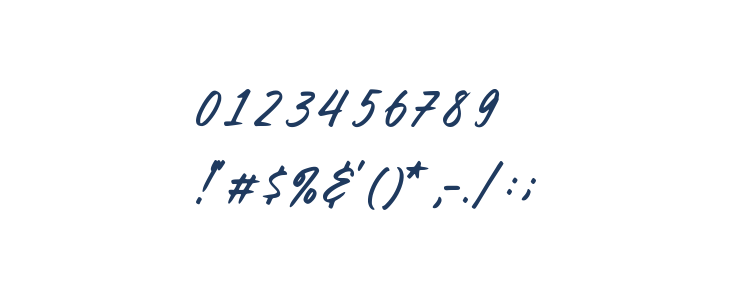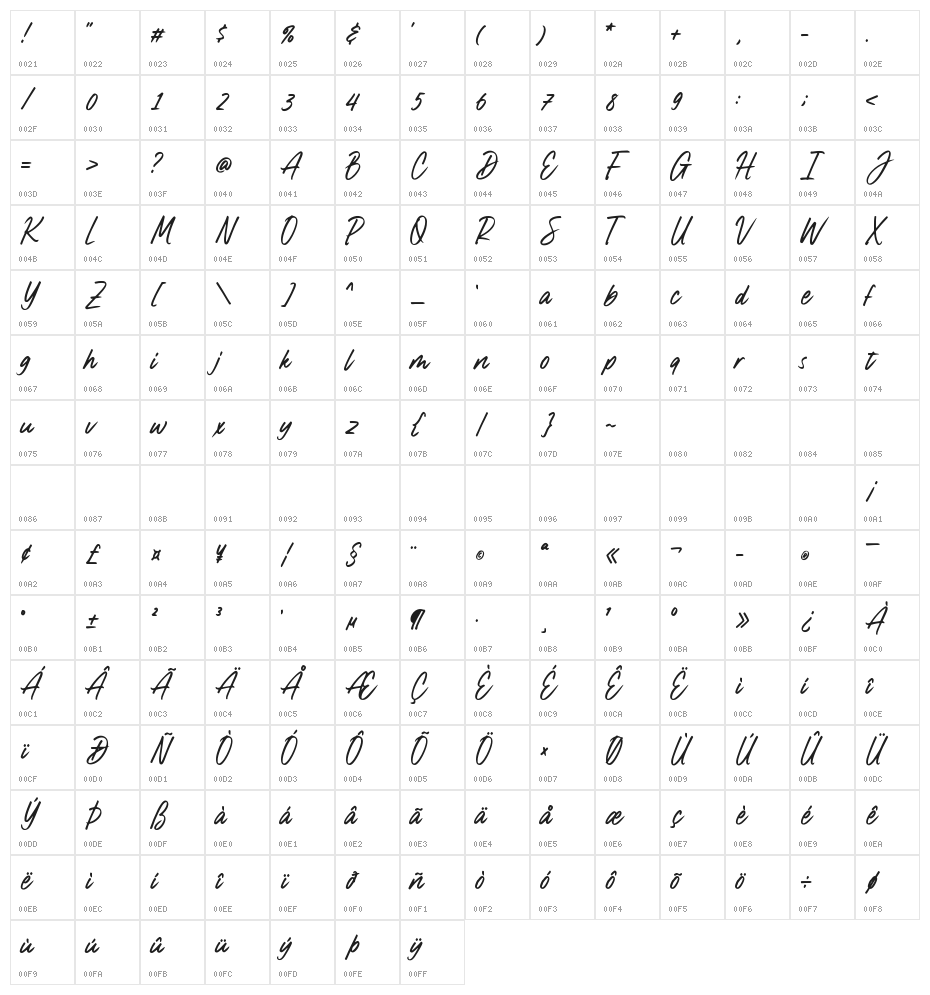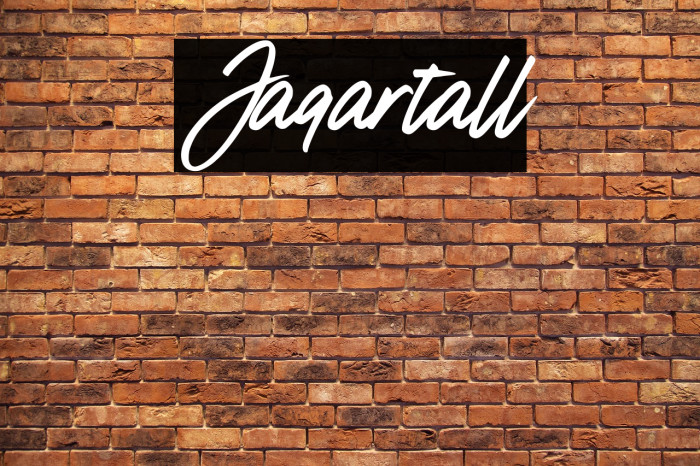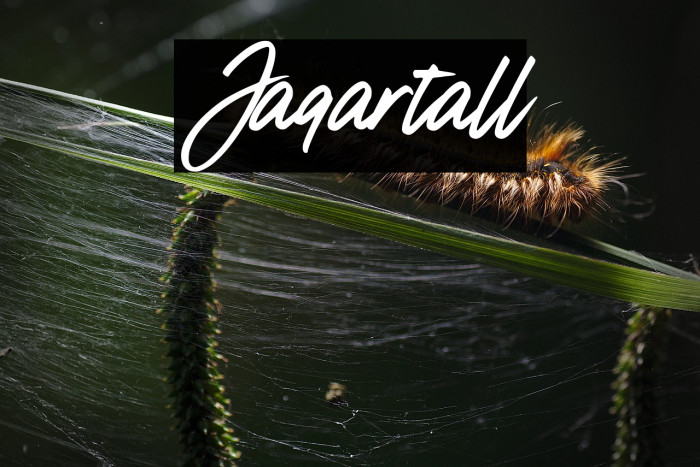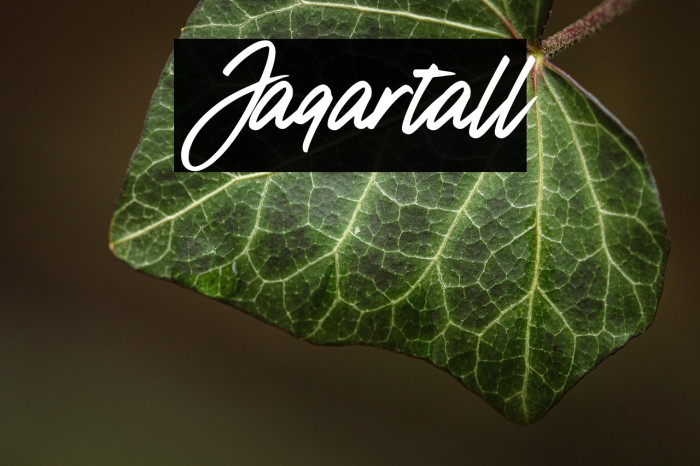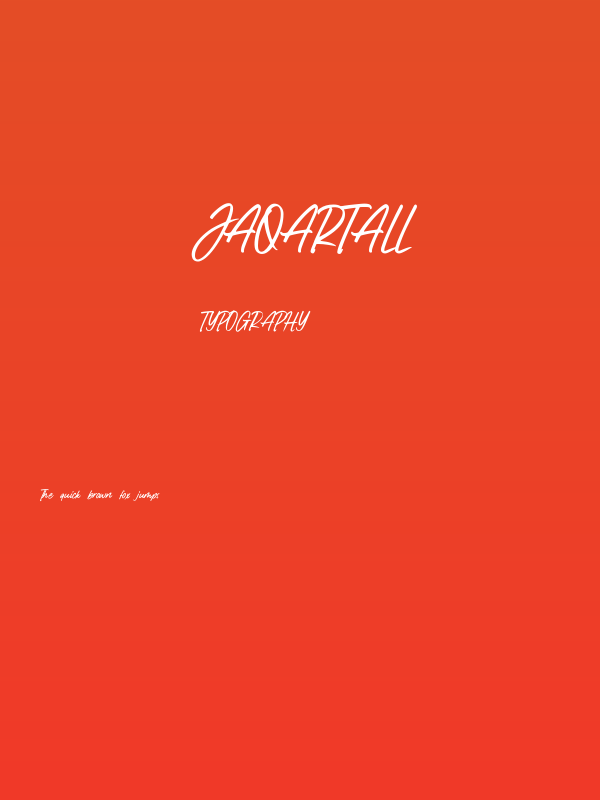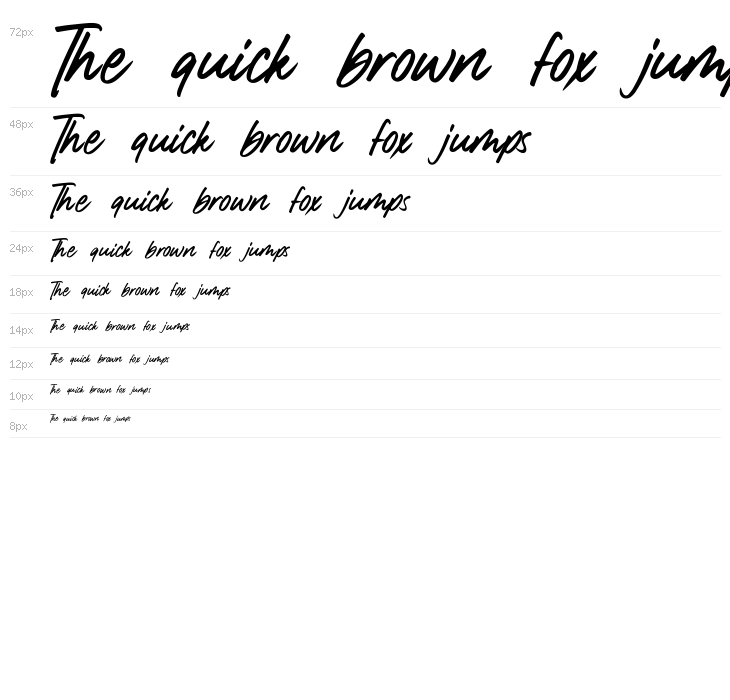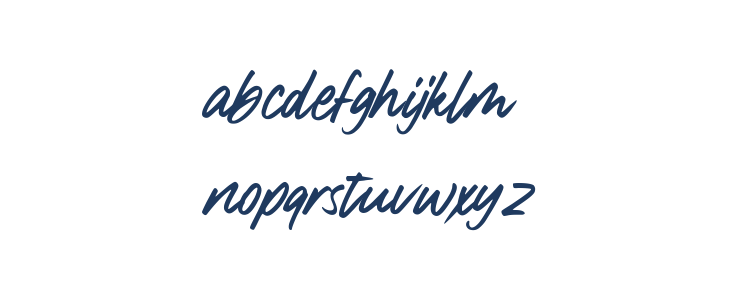
Jaqartall Font
Jaqartall Description
This font features a dynamic and fluid script style, characterized by its elegant, flowing lines and a sense of movement. The letters are connected, mimicking the natural flow of handwriting, which gives it a personal and artistic touch. The uppercase letters are bold and prominent, while the lowercase letters maintain a consistent rhythm, enhancing readability. The numerals and special characters are designed to complement the overall script style, maintaining the same fluidity and elegance. This font is perfect for adding a personal, handwritten feel to any project.